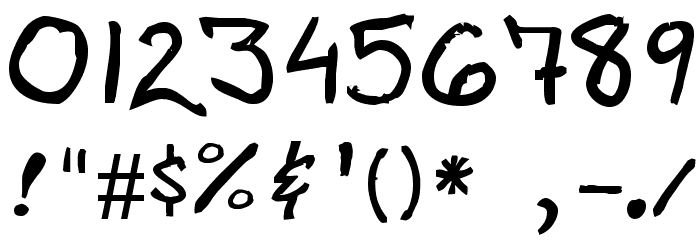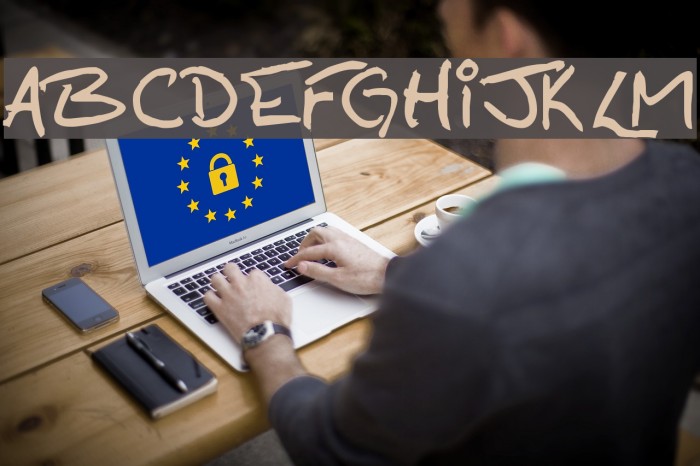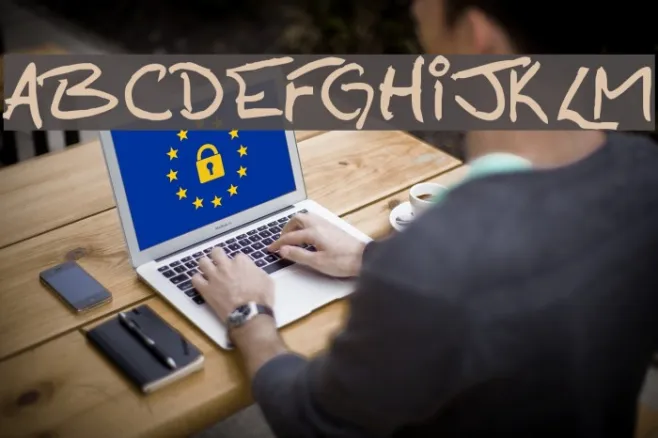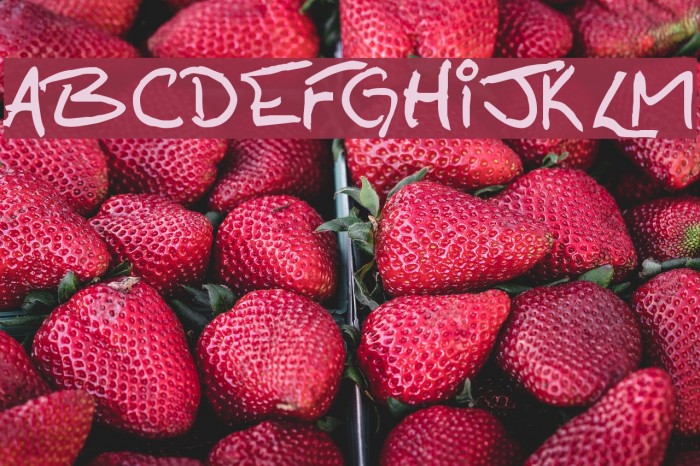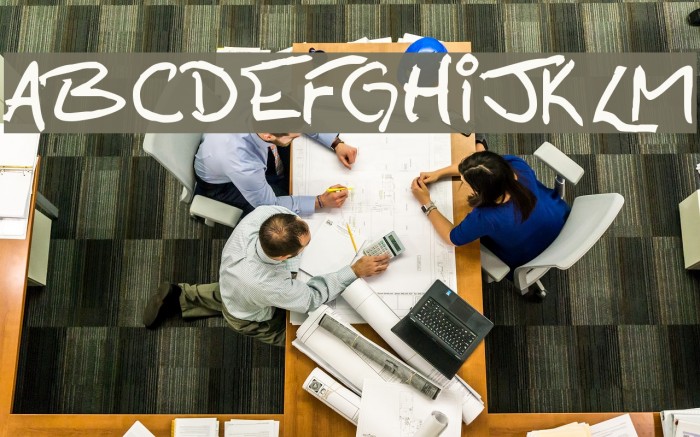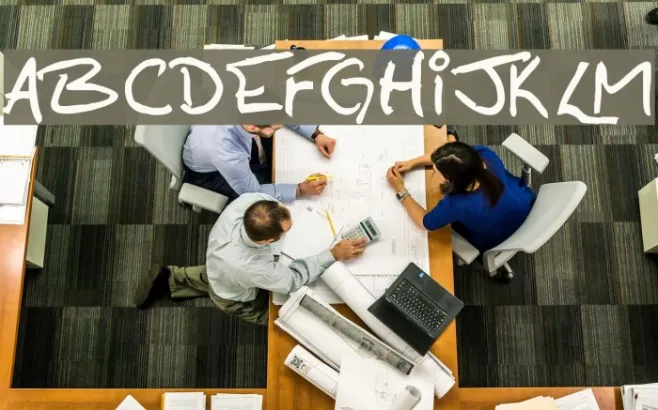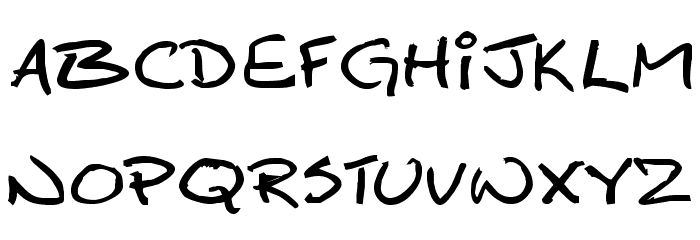
Callahan Font
Callahan Description
This font features a bold and expressive handwritten style, characterized by its dynamic and fluid strokes. The letters exhibit a natural, organic flow, with varying thickness that adds a sense of movement and energy. The uppercase and lowercase letters maintain a consistent style, while the numerals and special characters complement the overall aesthetic. The font's playful yet sophisticated appearance makes it suitable for creative and artistic projects. Its unique charm lies in the irregularities and imperfections that give it a personal touch, making it stand out in any design context.
| Use Case | Logos, Headlines, Artistic projects |
| Proposed Projects | Ideal for greeting cards, artistic posters, branding projects, and creative invitations. |